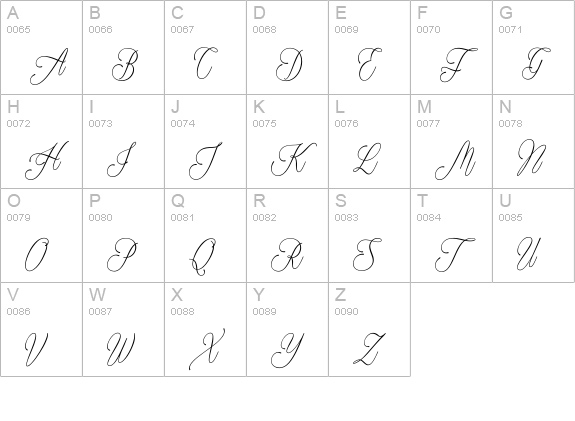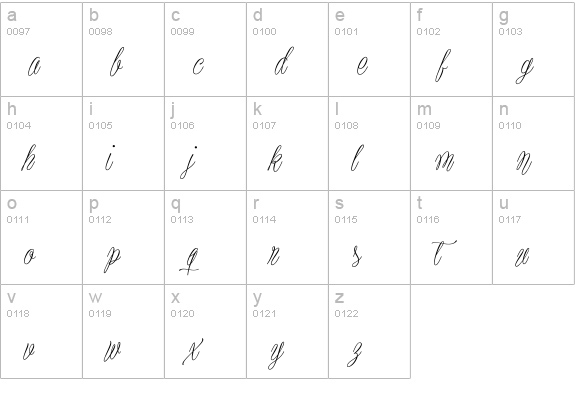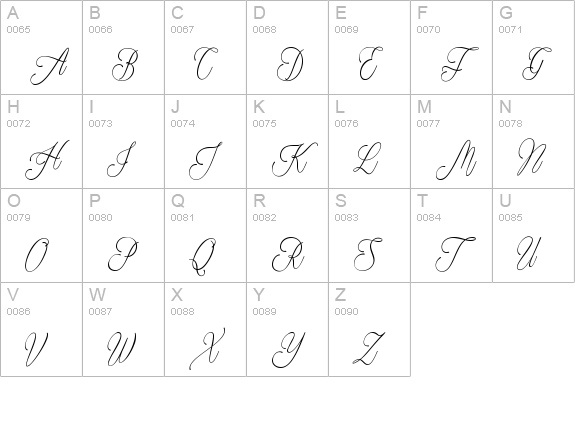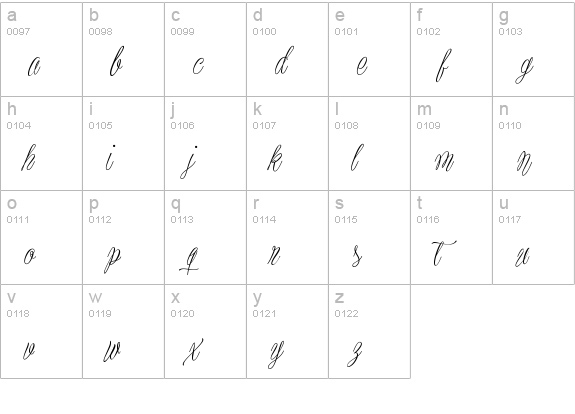
Plates Napery Personal Use Font Details
Plates Napery Personal Use font is a stylish and elegant typeface that exudes sophistication and class. With its delicate and intricately designed letterforms, this font is perfect for adding a touch of refinement to any project. Whether you're creating invitations, wedding stationery, or simply want to elevate the look of your personal documents, Plates Napery Personal Use font is the ideal choice. What sets Plates Napery Personal Use font apart is not only its stunning aesthetics but also the fact that it is completely free to use. Yes, you read that right! This exquisite font can be downloaded for free at FontsMarket.com, making it accessible to everyone, regardless of budget or project size. The versatility of Plates Napery Personal Use font is unmatched. Its clean lines and graceful curves make it suitable for both formal and informal occasions. Whether you're designing a menu for a high-end restaurant or creating a beautiful handwritten quote for your social media feed, this font will effortlessly elevate your content and make it stand out. Plates Napery Personal Use font is available in a variety of weights and styles, allowing you to experiment and find the perfect combination for your design needs. Whether you prefer a bold and impactful headline or a subtle and understated body text, this font has got you covered. So why wait? Download Plates Napery Personal Use font today and unlock a world of endless design possibilities. With its timeless elegance and the fact that it is freely available to download at FontsMarket.com, this font is a must-have for any designer, artist, or creative individual looking to enhance their work with a touch of sophistication.